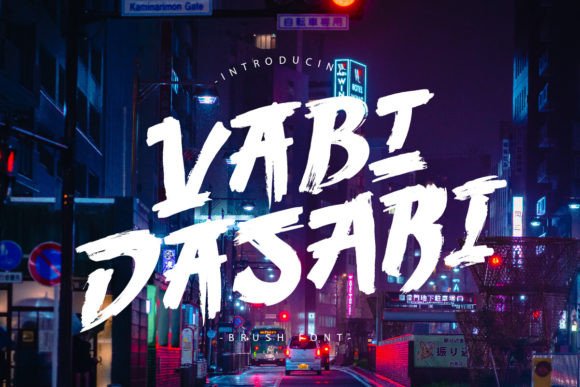
Unleash your creative vision with Vabi Dasabi Font, a breathtaking Japanese hand-drawn brush font that exudes charm and authenticity. Immerse yourself in the world of interior design with this exquisite font, meticulously crafted to elevate your projects to new heights.
Vabi Dasabi Font is more than just a collection of letters and symbols; it's an expression of art, a symphony of strokes that dances across the page. Each character is a testament to the beauty of imperfection, capturing the essence of Japanese aesthetics. With its organic lines and subtle variations, Vabi Dasabi Font brings a sense of warmth and individuality to your designs.
Elevate your logos with a touch of sophistication, making them stand out from the crowd. Create captivating quotes that resonate with your audience, leaving a lasting impression. Design posters that are both visually stunning and thought-provoking, capturing the attention of all who see them.
Vabi Dasabi Font is not just limited to digital creations; it seamlessly transitions into the physical world, transforming products and spaces. Adorn your branding projects with a unique identity that reflects your brand's essence. Create product packaging that exudes elegance and distinction, leaving a lasting impression on your customers. Design t-shirts that make a statement, expressing your individuality and style.
With Vabi Dasabi Font, transform ordinary book covers into extraordinary works of art. Let your words dance across the pages, captivating readers from the very first glance. Create greeting cards that are as heartfelt as they are visually stunning, conveying your emotions in a truly special way.
Vabi Dasabi Font opens up a world of possibilities for graphic designers, providing the perfect tool to bring your creative visions to life. Its versatility extends across a wide range of projects, from logos and posters to product packaging and book covers.
Embrace the beauty of imperfection with Vabi Dasabi Font. Download it today and embark on a creative journey like no other. Experience the joy of creating designs that are both visually stunning and emotionally resonant. Let Vabi Dasabi Font be your guide as you transform your interior design projects into masterpieces of art.